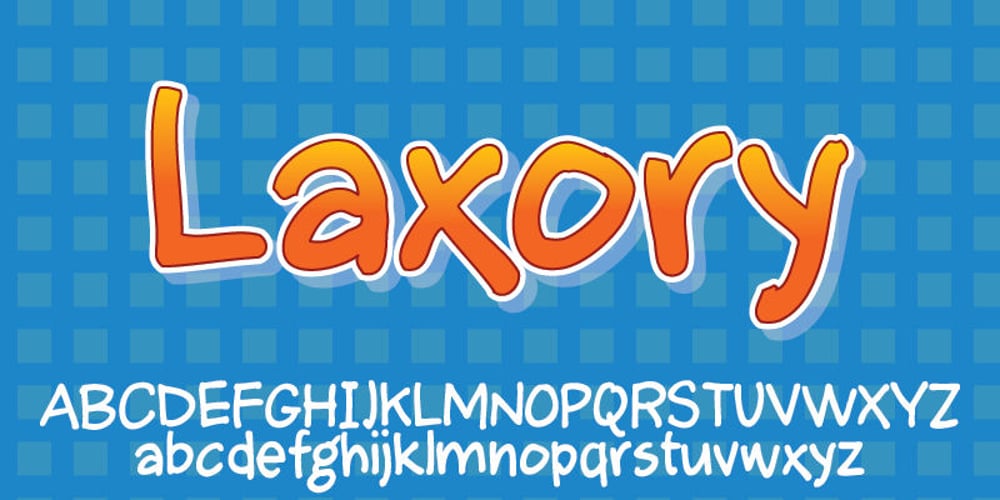
Laxory Font Family was designed by Jakob Fischer and published by PizzaDude.dk. Laxory contains 1 styles and family package options. My handwriting with a speedmarker turned into a font – well, not really, to be honest! Personally I did do all the writing of letters, but in order for the letters to fit perfectly together, I manipulated them – just a tad! But the result is a hasty set of letters! When I say I wrote all the letters, I mean it literally!!! All letters are unique, meaning all the accented characters are unique! On top of that, Laxory comes with ligatures for both double lowercase letters and numbers! You will need to use OpenType supporting applications to use the autoligatures.